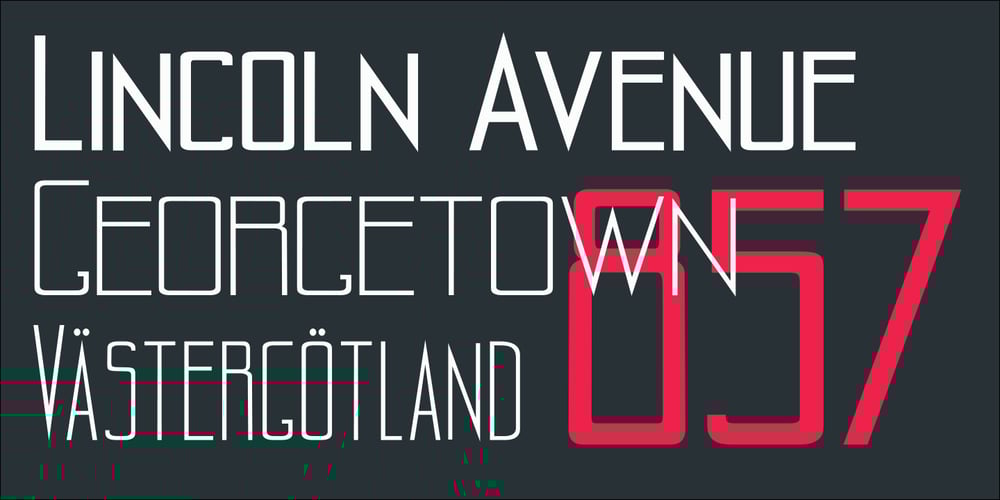
Alpaim
Alpaim font
Alpaim Font Family was designed by Cyrill Golikov and published by EchadType. Alpaim contains 22 styles and family package options. Alpaim is a minimalist sans serif font. Uniform characters and sharp geometric features create light modular sensation. Architectural nature of this font is perfectly suited for display use, graphic design, branding and even technical lettering. Originally designed in thin condensed version, now includes weight and width variation, Latin diacritics and Hebrew.